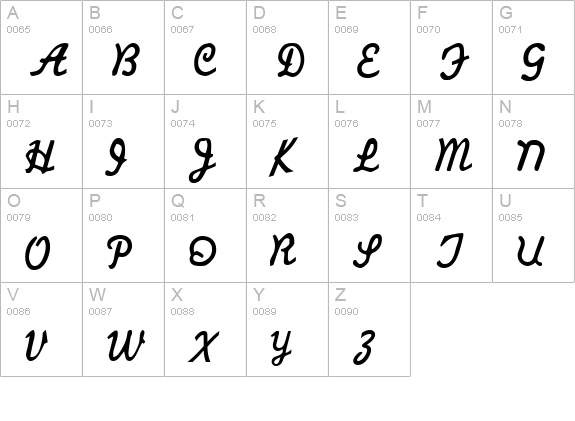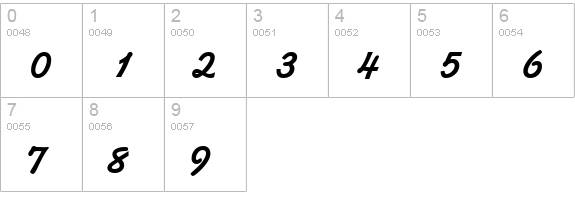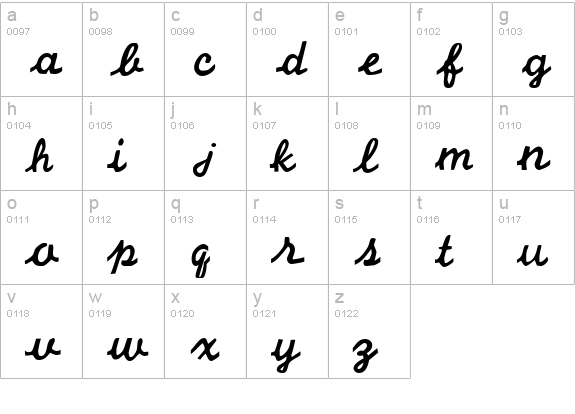
Cafe1 Font Details
Introducing Cafe1, a font that exudes the cozy and inviting ambiance of your favorite coffee shop. This versatile typeface effortlessly blends elegance and simplicity, making it the perfect choice for a wide range of design projects. Whether you're creating a menu for a trendy cafe, designing a logo for a boutique coffee brand, or crafting an invitation for a coffee-themed event, Cafe1 will add a touch of sophistication and charm. With its beautifully crafted characters and smooth curves, Cafe1 captures the essence of the handwritten aesthetic, giving your designs a personal and authentic feel. Its unique letterforms are carefully balanced, allowing for easy readability while maintaining a sense of stylish flair. The delicate stroke variations and graceful curves of Cafe1 will instantly elevate your designs, making them stand out from the crowd. But what makes Cafe1 truly special is its accessibility. This font is freely available to download at FontsMarket.com, giving designers, entrepreneurs, and enthusiasts alike the opportunity to add a touch of elegance to their projects without breaking the bank. Cafe1's availability as a free font ensures that creativity knows no bounds, empowering everyone to create stunning visuals that leave a lasting impression. So whether you're a seasoned designer or just starting out, Cafe1 is the perfect choice for your next project. Its versatility, elegance, and accessibility make it a font that will never go out of style. Download Cafe1 today from FontsMarket.com and unleash your creativity with this timeless typeface.